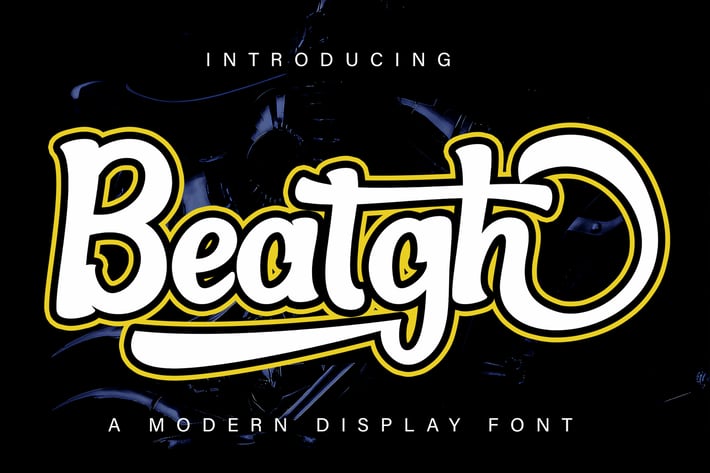
Beatgh Modern Display Font
Beatgh is a modern, cool, beautiful, and very suitable display font to support your presentation and support in marketing your products and business
Ligature\
Stylistic set for lowercase\
Stylistic set for Ending\